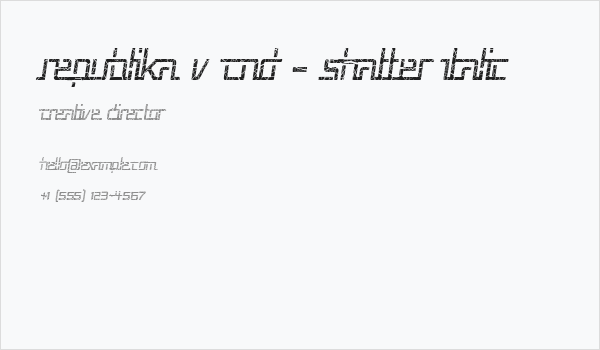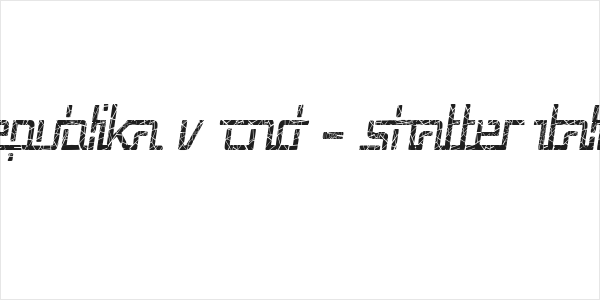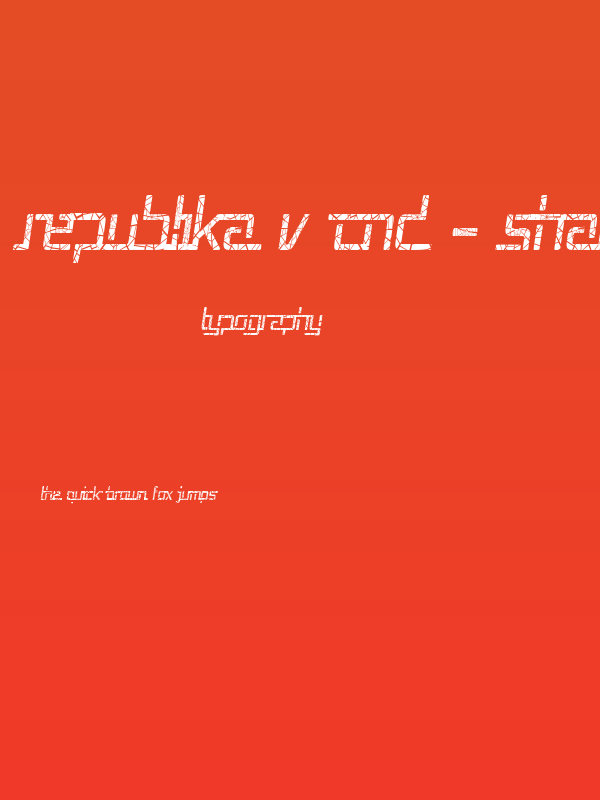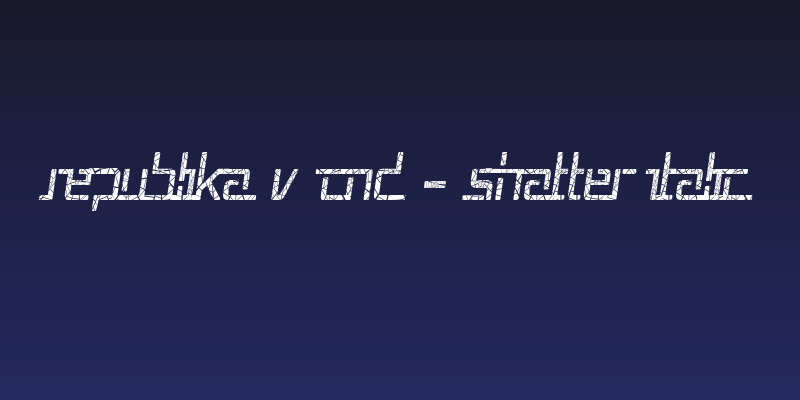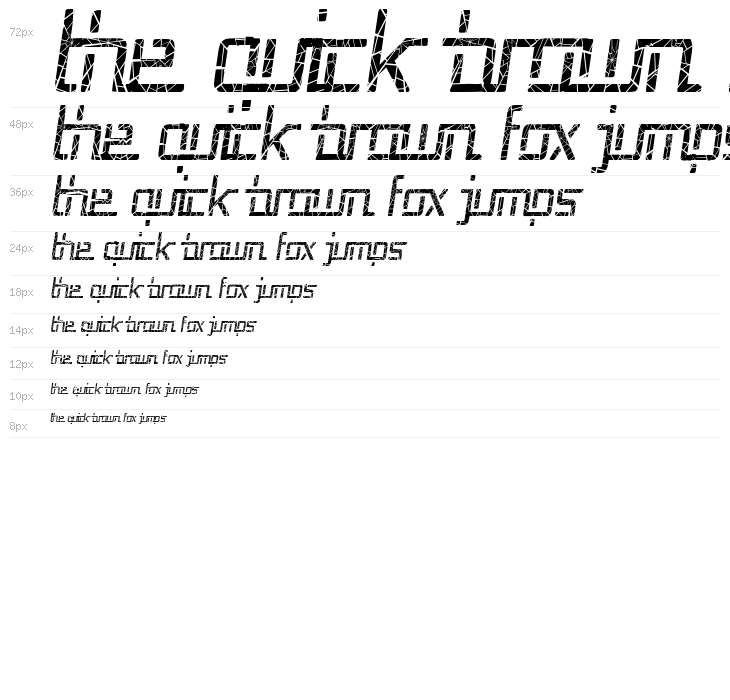
Republika V Cnd - Shatter Italic Font
Republika V Cnd - Shatter Italic Description
This font features a unique shattered effect, giving each character a fragmented and dynamic appearance. The letters are italicized, adding a sense of movement and energy. The design is bold and eye-catching, making it suitable for projects that require a strong visual impact. The uppercase and lowercase letters maintain a consistent style, with sharp angles and geometric shapes. Numbers and special characters are included, following the same shattered theme. This font is perfect for modern and edgy designs, where a distinctive and unconventional look is desired.
Proposed ProjectsIdeal for album covers, posters, branding, and any project needing a striking, modern aesthetic.